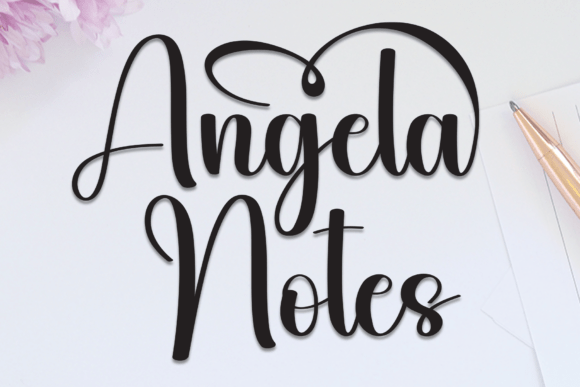
The Elegant Charm of Angela Notes Font
I’ll never forget the time I was working on a wedding invitation project, and my client asked for a font that was both elegant and playful. I scoured the internet, tried out countless fonts, but nothing seemed quite right. That was until I stumbled upon Angela Notes Font. Its fluid, graceful strokes immediately caught my eye, and I knew I had found the perfect fit. In this article, I’ll share with you why I’m obsessed with Angela Notes Font, its features, and how to make the most of it in your designs.
A Personal Review of Angela Notes Font
- ✨ Elegant and charming: Angela Notes Font exudes sophistication and refinement, making it perfect for high-end branding, invitations, and stationery.
- ✅ Smooth curves and natural flow: The font’s fluid strokes create a timeless, refined look that’s sure to impress.
- 💫 Versatile: From formal events to personal projects, Angela Notes Font adapts seamlessly to any design style.
While Angela Notes Font is an excellent choice for many projects, there are a few things to keep in mind:
- ⚠️ Limited use in body text: Due to its elegant and cursive nature, Angela Notes Font might not be the best choice for lengthy body text. It’s better suited for headings, titles, or short paragraphs.
- 🤔 May require adjustments for small sizes: When using Angela Notes Font in smaller sizes, you might need to tweak the tracking and kerning to ensure it remains legible.
The Story Behind Angela Notes Font
Angela Notes Font was designed with the intention of creating a elegant and charming script font that would add a personal touch to any design. The designer aimed to craft a font that was both refined and approachable, making it perfect for a wide range of projects.
Q: Is Angela Notes Font suitable for body text?
A: While Angela Notes Font is an excellent choice for headings and titles, it might not be the best fit for lengthy body text due to its elegant and cursive nature.